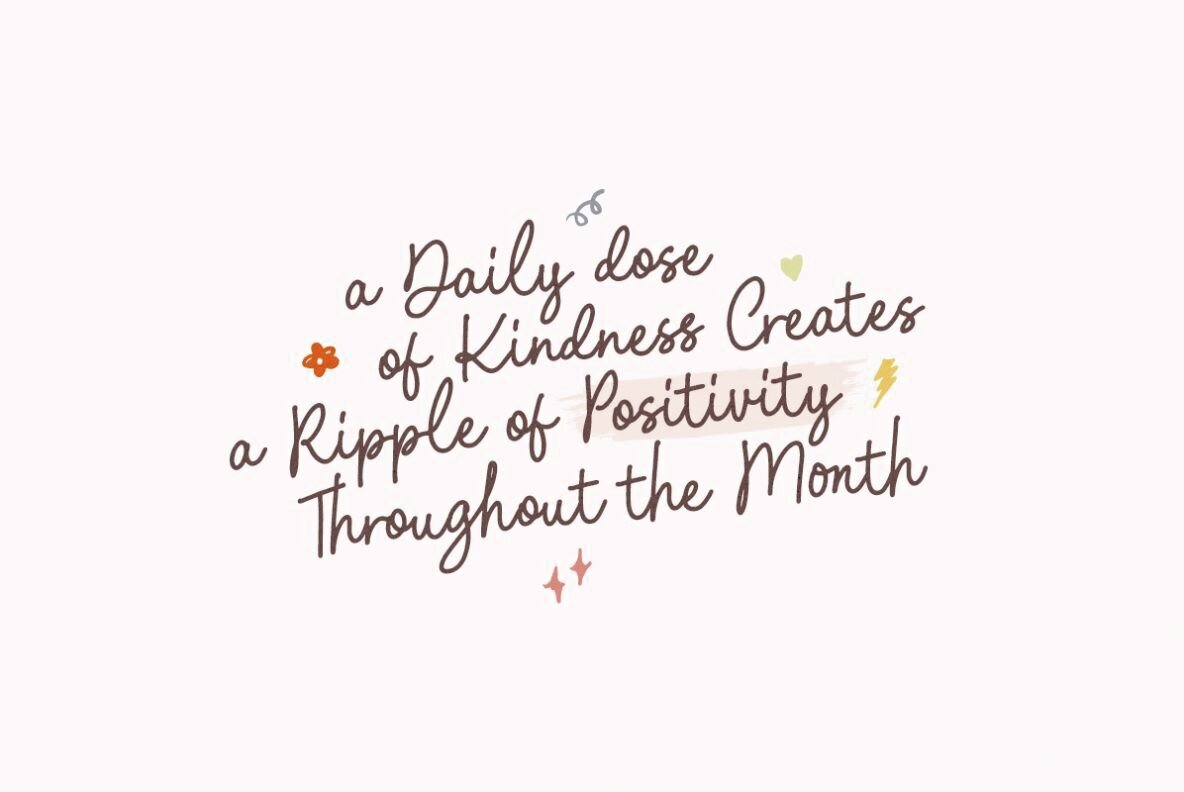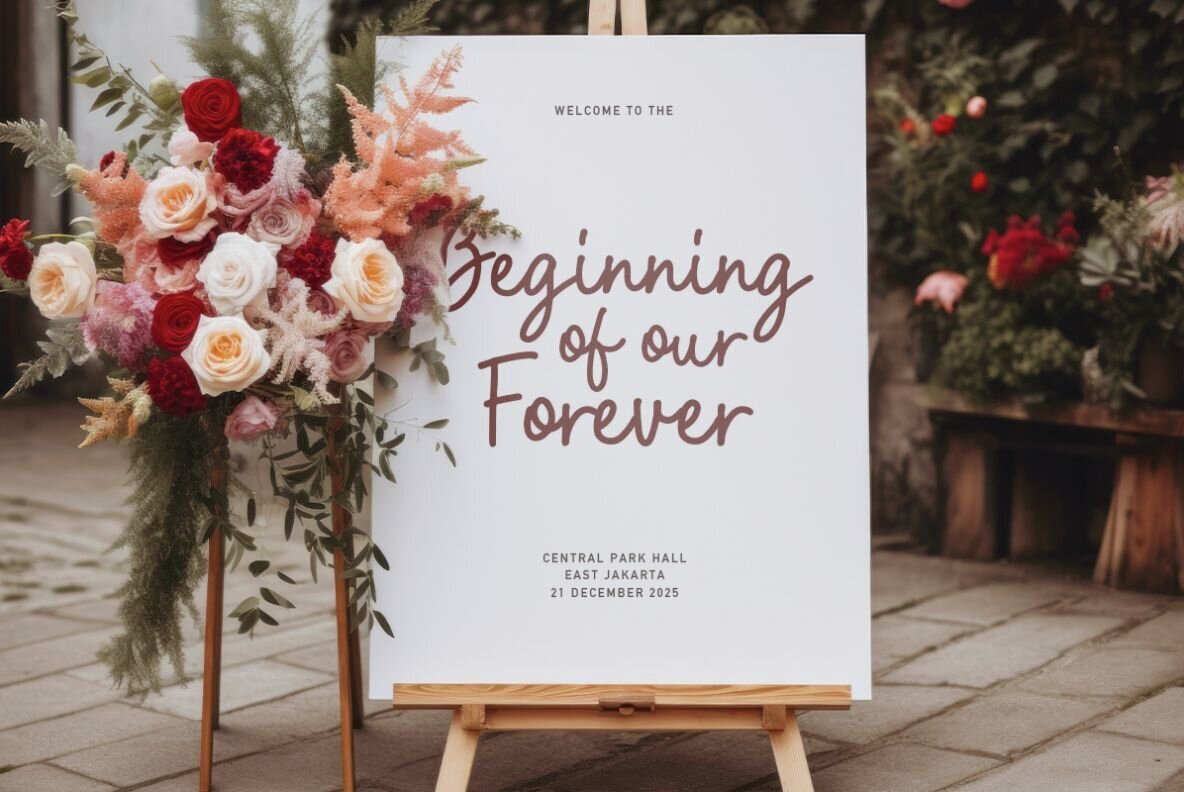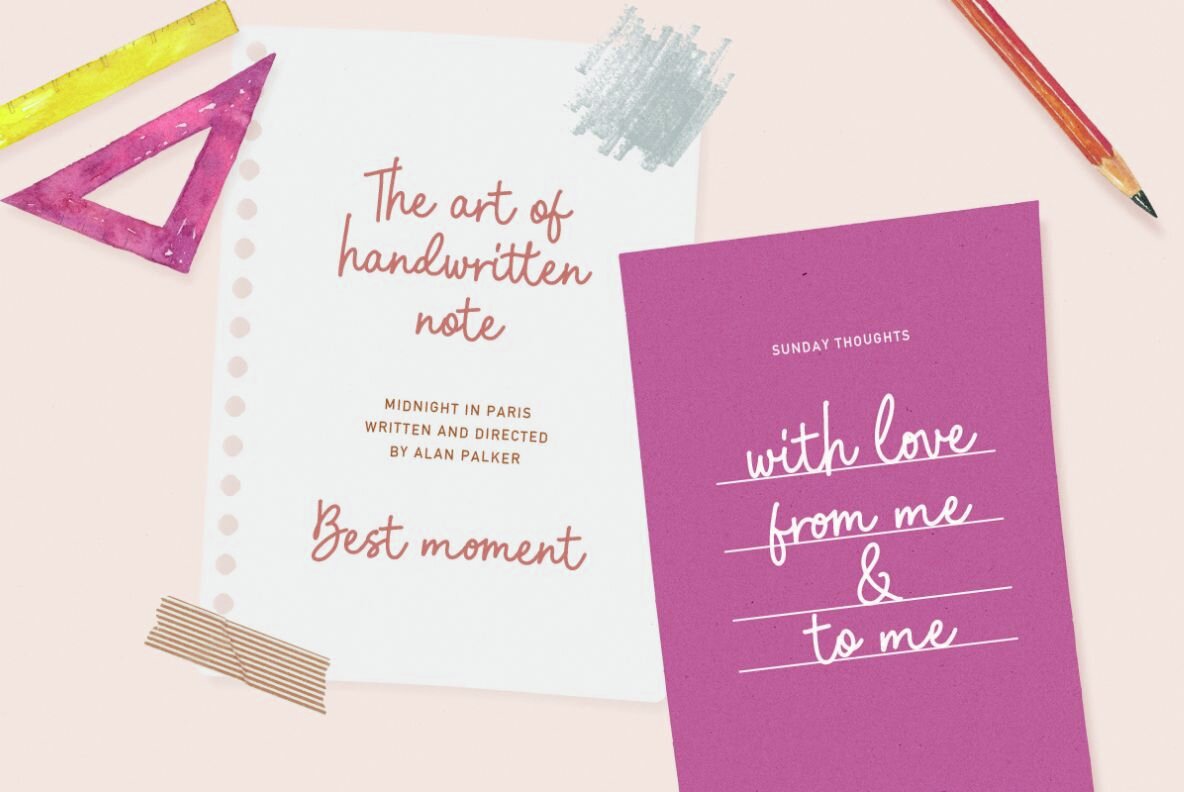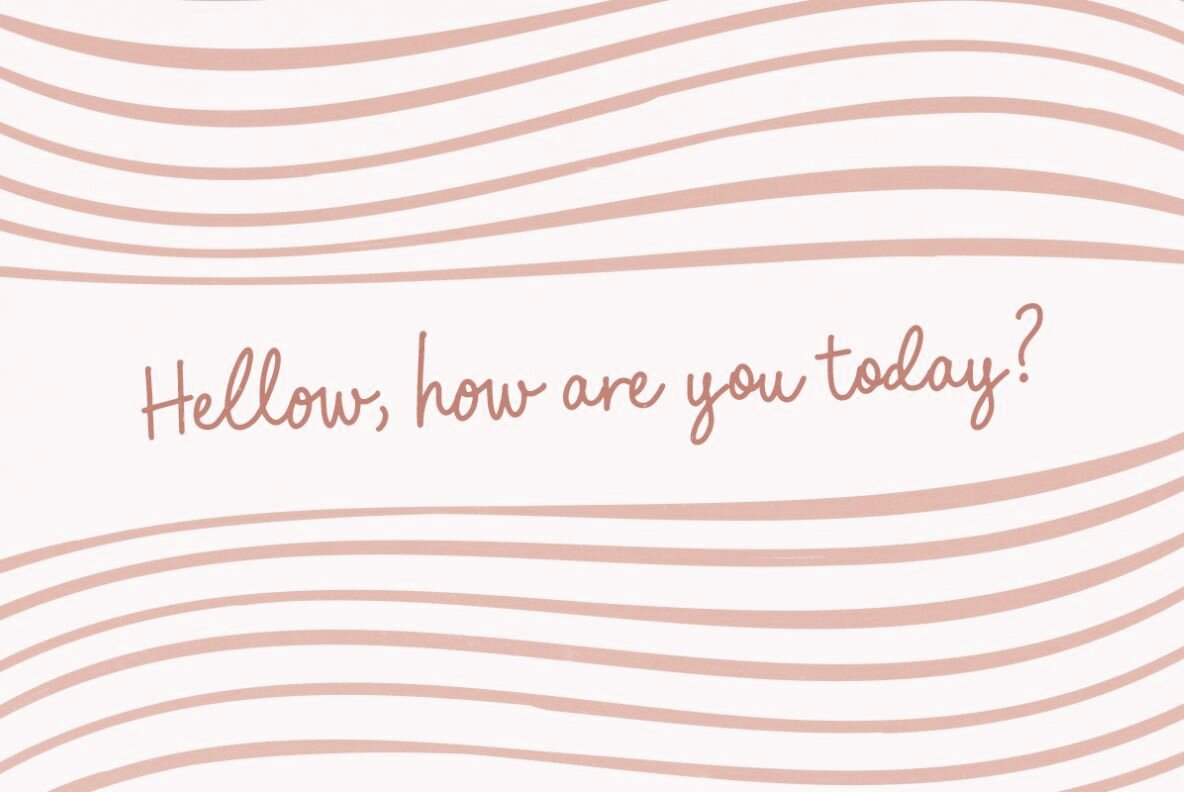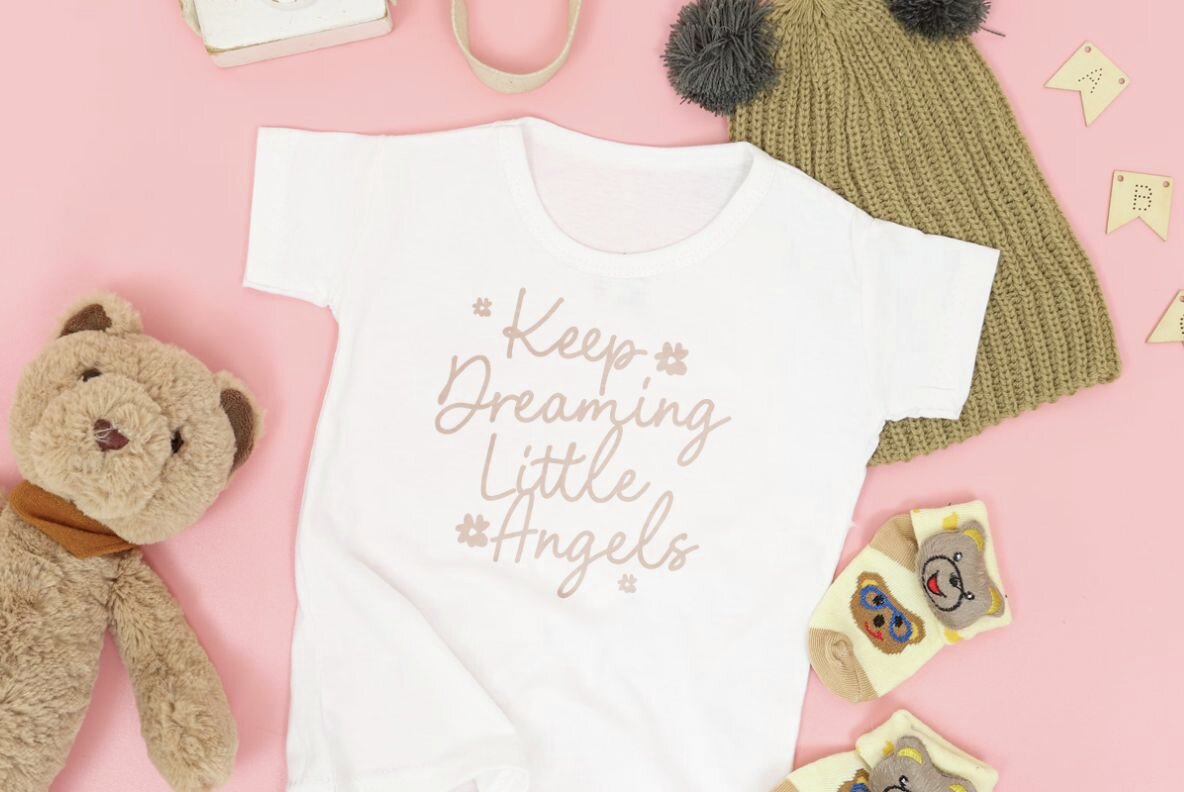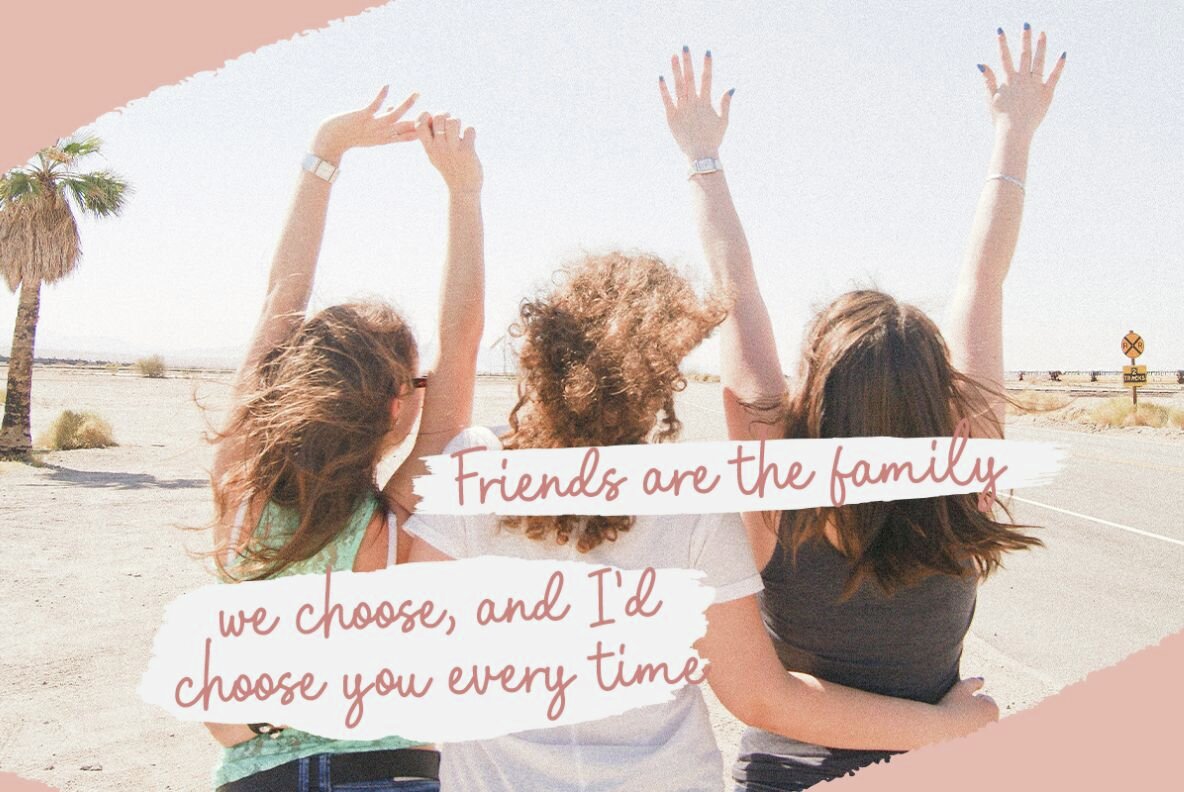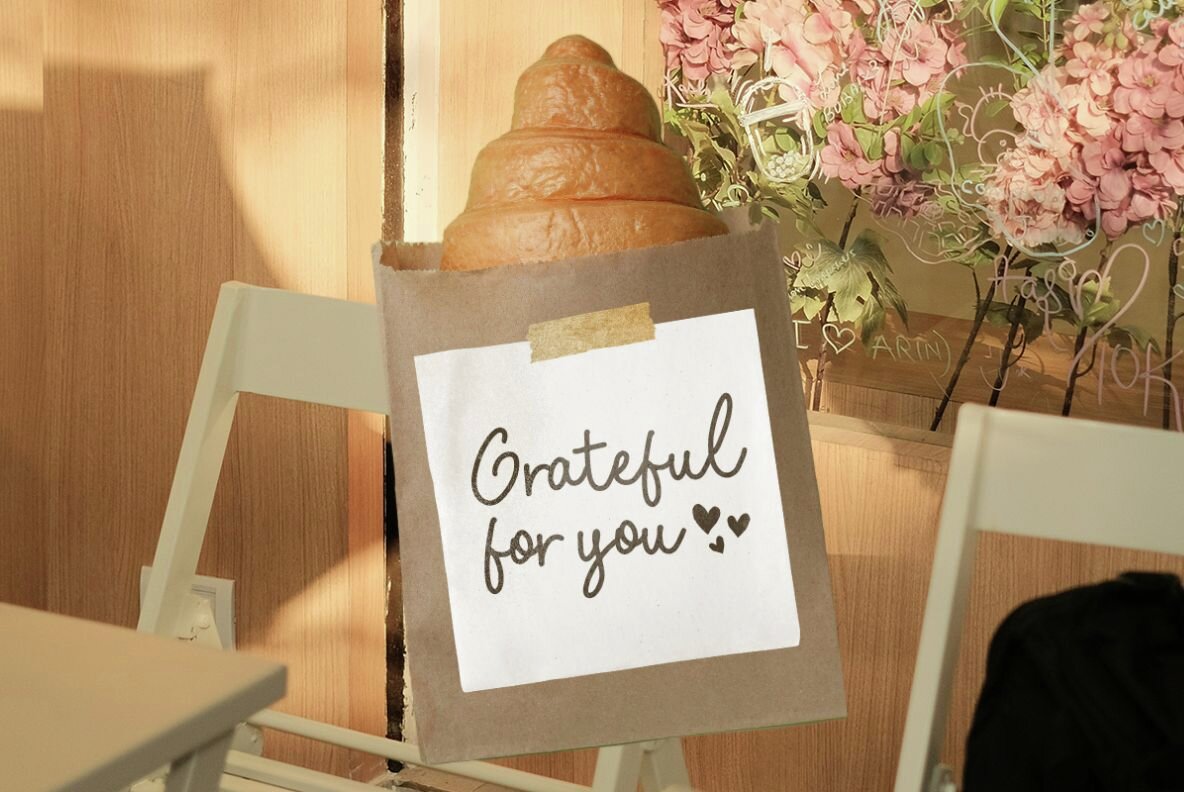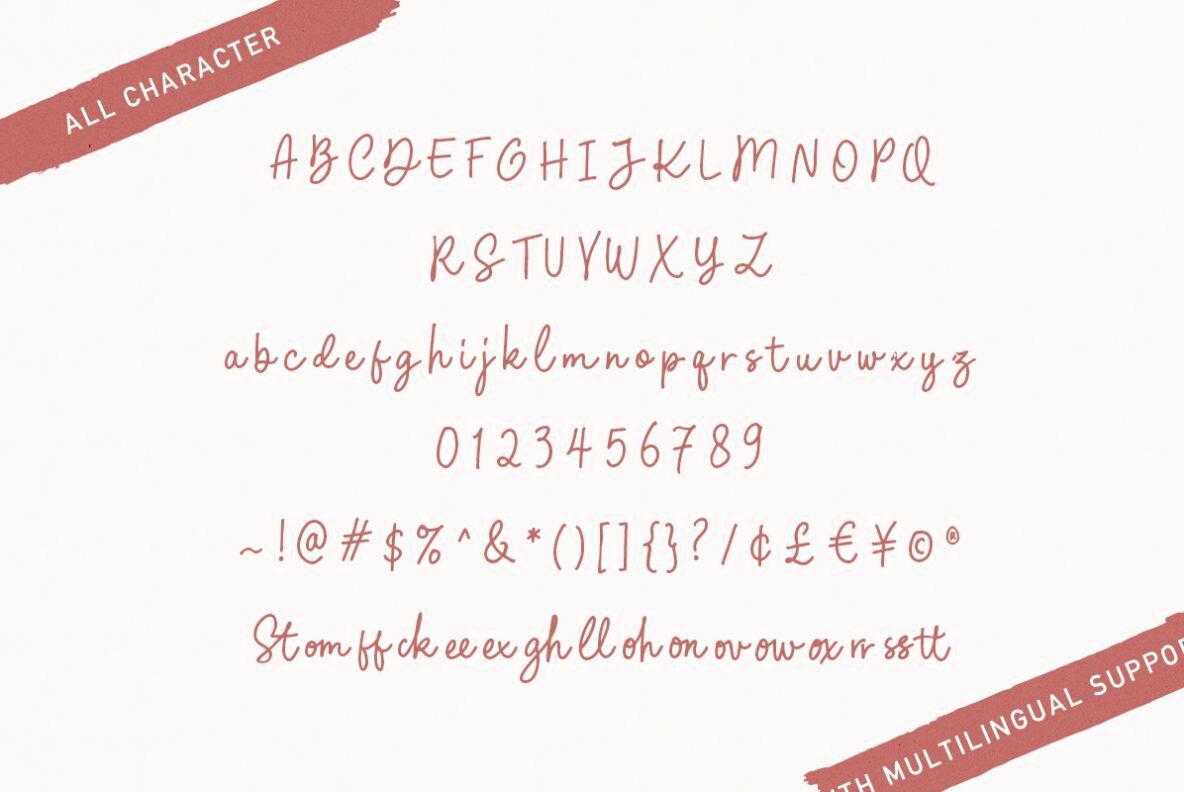
Stellight Font
Stellight Regular
Stellight is a charming monoline script font designed to bring a touch of sweetness to your projects. Its simple and endearing aesthetic makes it an ideal choice for crafting delightful designs and heartfelt quotes. Stellight's versatile nature also lends itself well to wedding invitations and branding materials, providing a harmonious and cohesive look.
Incorporated with ligatures, this font ensures smooth connections between letters, enhancing the overall flow of your text. Furthermore, Stellight supports multiple languages, making it a versatile option for international projects. Capture the essence of elegance and simplicity with Stellight in your next creative endeavor.